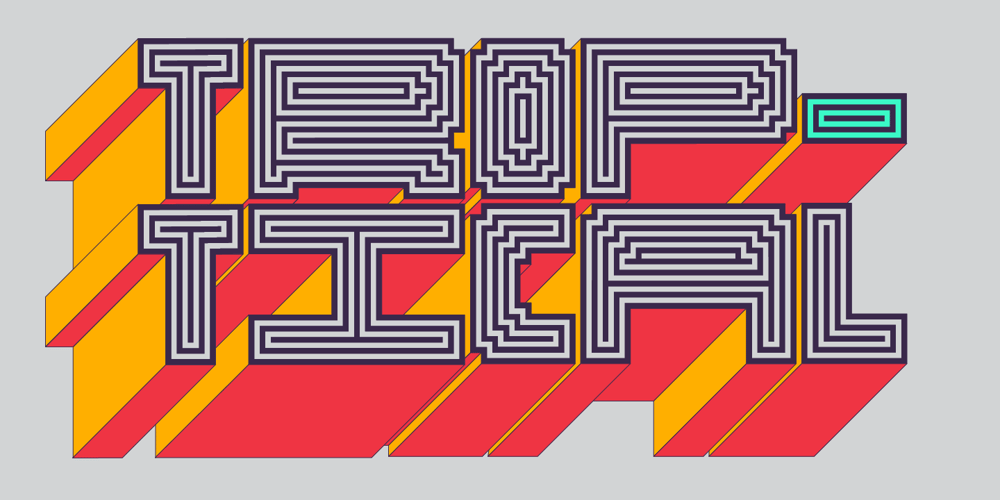
Troptical Font Family was designed by Alexander Wright and published by In-House International. Troptical contains 44 styles and family package options. Troptical is a hypnotic, energetic multilinear typeface that’s all rhythm and movement. Featuring concentric lines and angular construction, Troptical is inspired by the dazzling dynamism of op-art and the clever geometry of Latin American design, with a dash of 8-bit video game playfulness.Beneath its art-party, sporting-stripe vibes, this typeface is practical to the core. Troptical’s modular, building-block characters that were born to stack. And with five variable widths interchangeable across its three styles, it’s a typeface specifically developed for mixing and matching characters so every word is a design in itself. Troptical comes in three line weights across all styles and widths. C’mon, let’s dance. Font specsDesigned by In-House International and led by Alexander Wright, Troptical is available for Opentype format (.otf) compatible with Mac and PC. Each style family also includes a Variable option designers using compatible platforms. Check compatibility / support status for variable fonts at v-fonts.com/support/Troptical is available in five standardized, interchangeable widths marked with ascending numbers that represent their span in columns: 10, 15, 20, 25, and 30. Each width is offered in three weights: Light, Medium and Bold. With a total of 45 unique fonts across such a wide range of weights and styles, this type family makes it easy to create optical, dynamic typographic treatments for when you just need your stills to move. It’s perfect for logos, large and graphic headers, publishing applications, presentations, packaging, apparel, merchandise and pedestrian-focused outdoor signage.